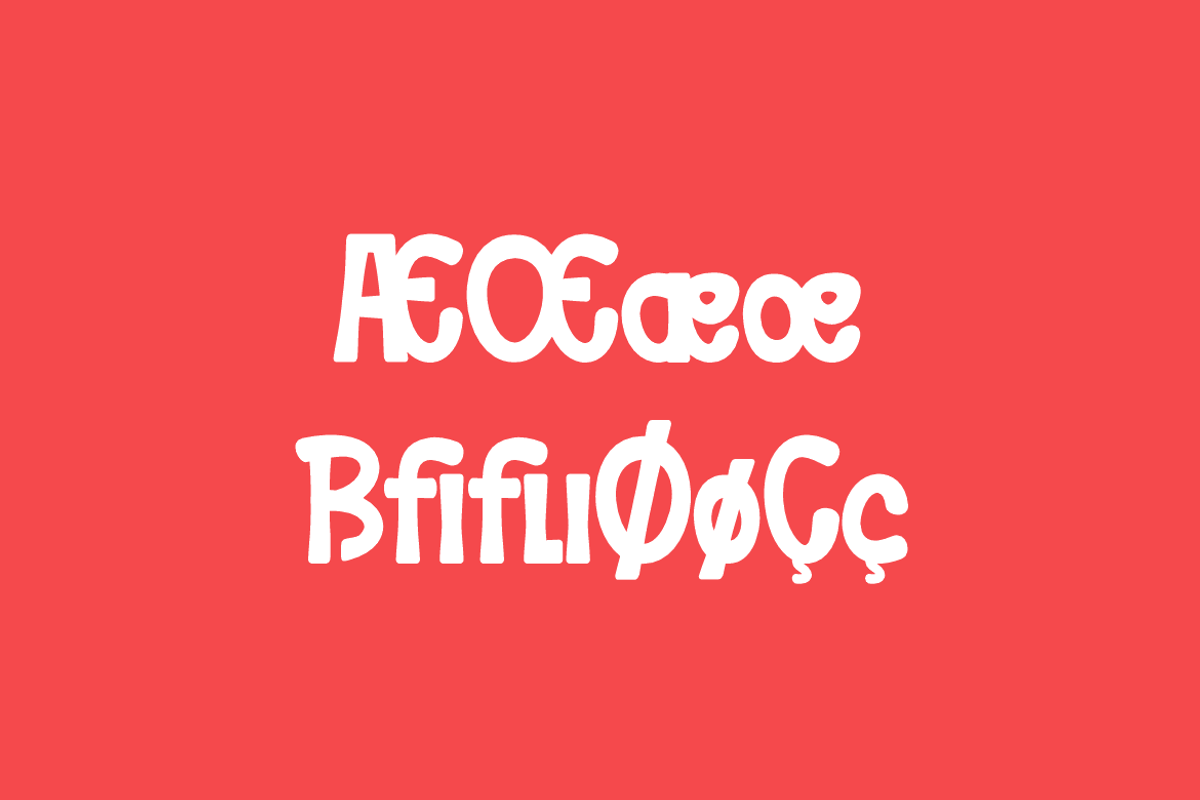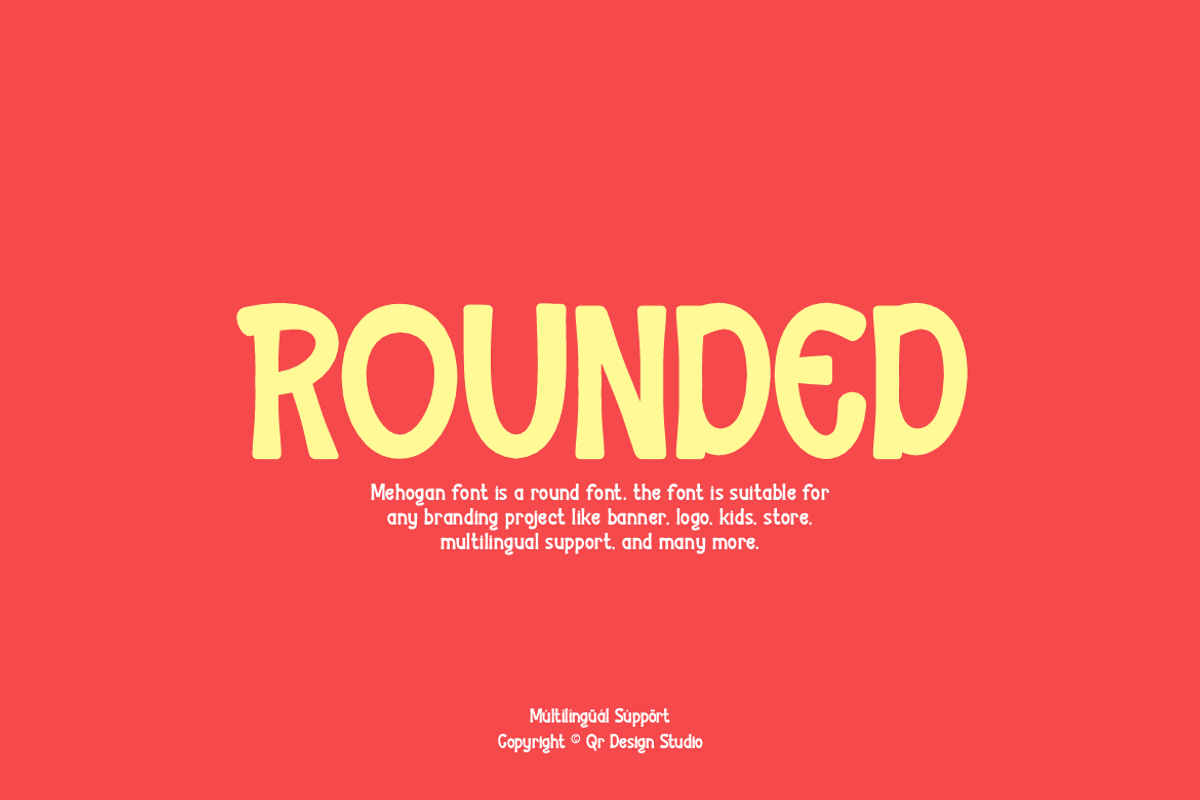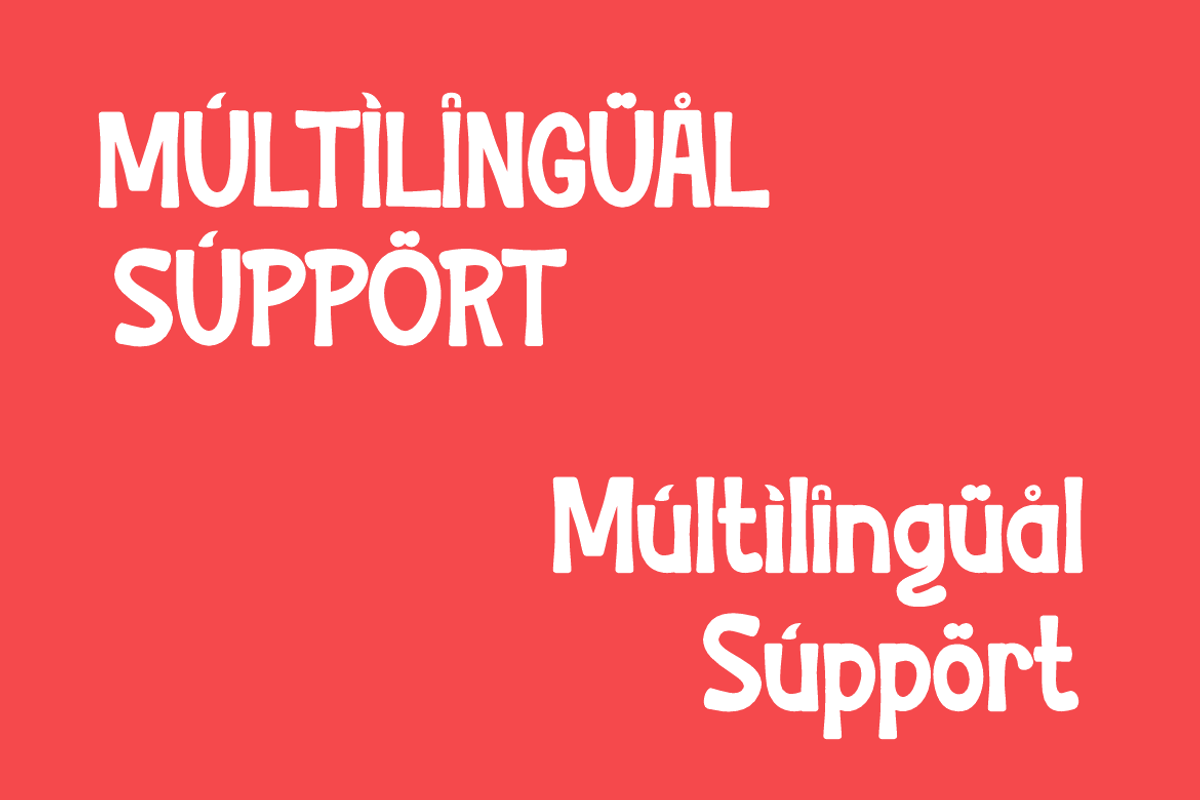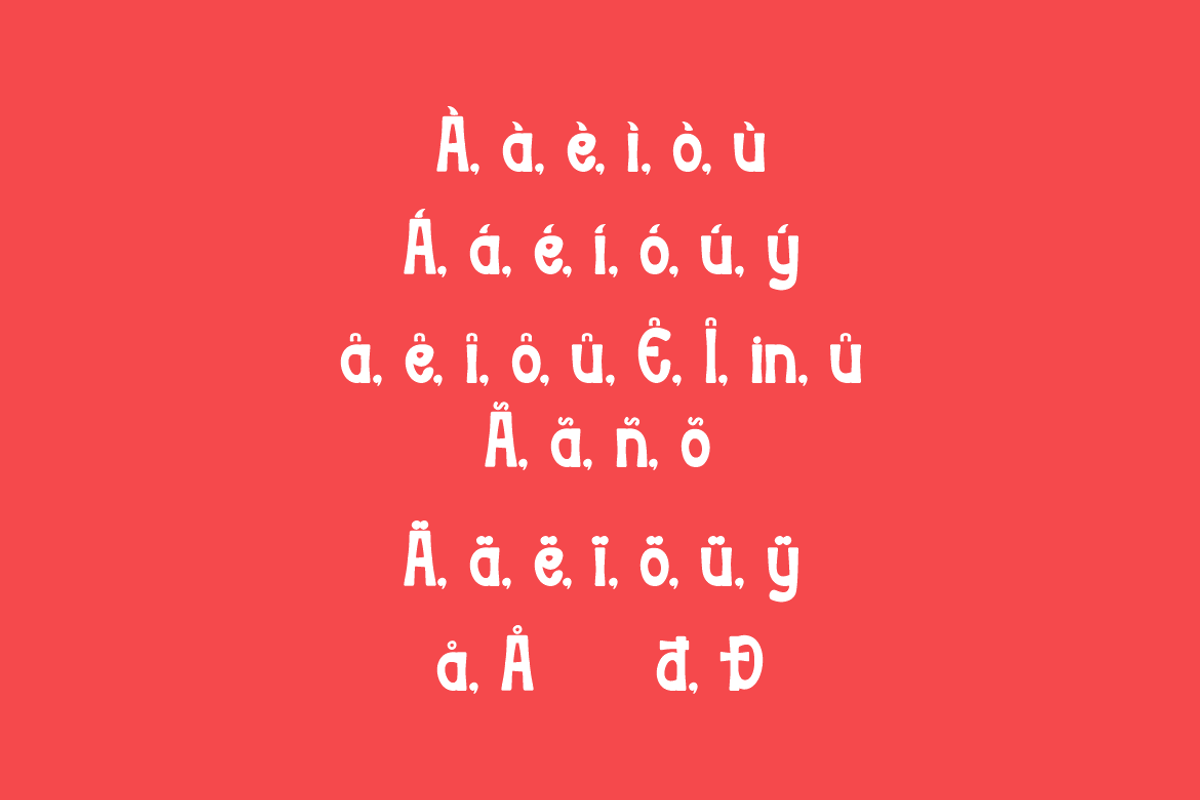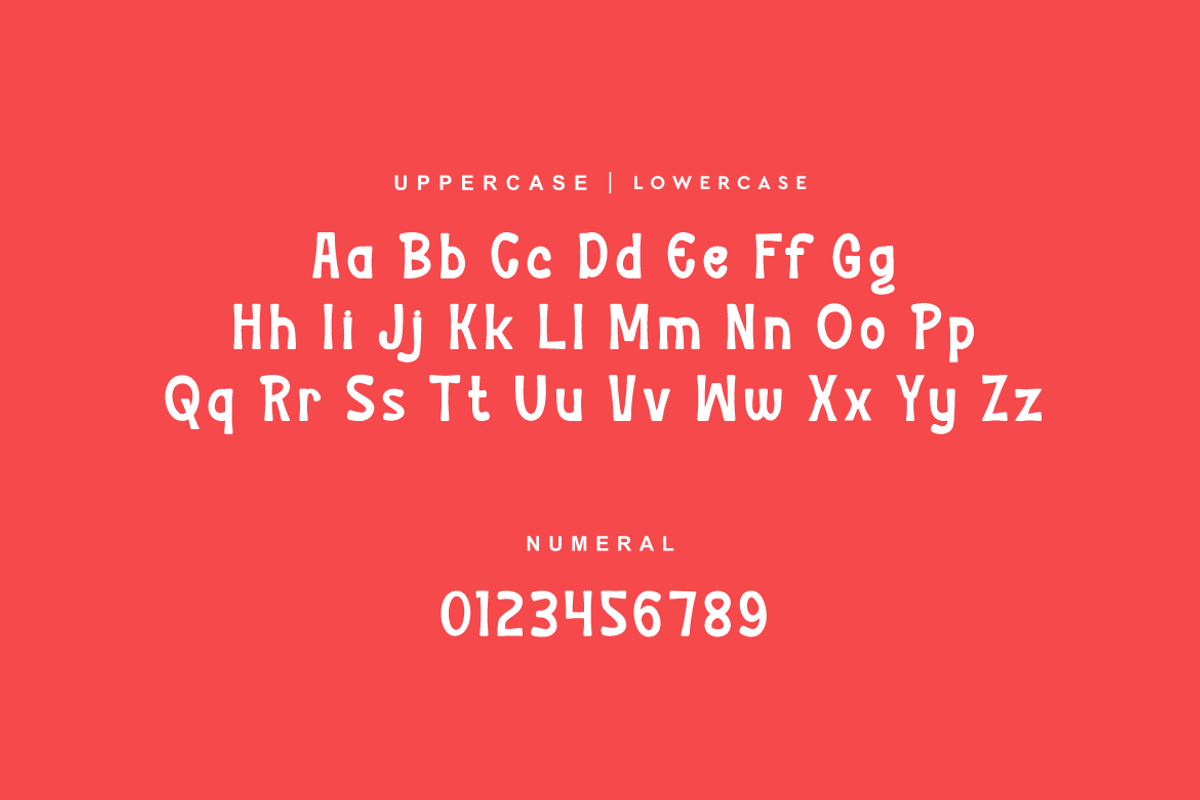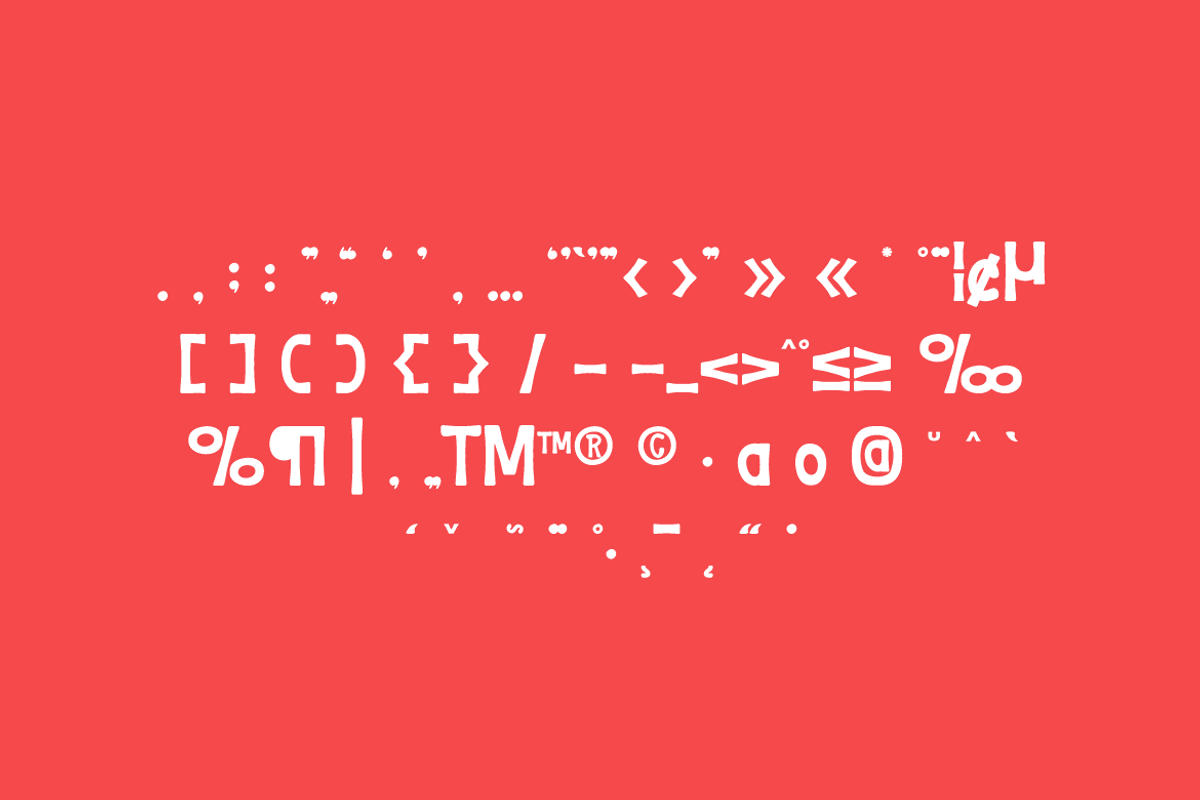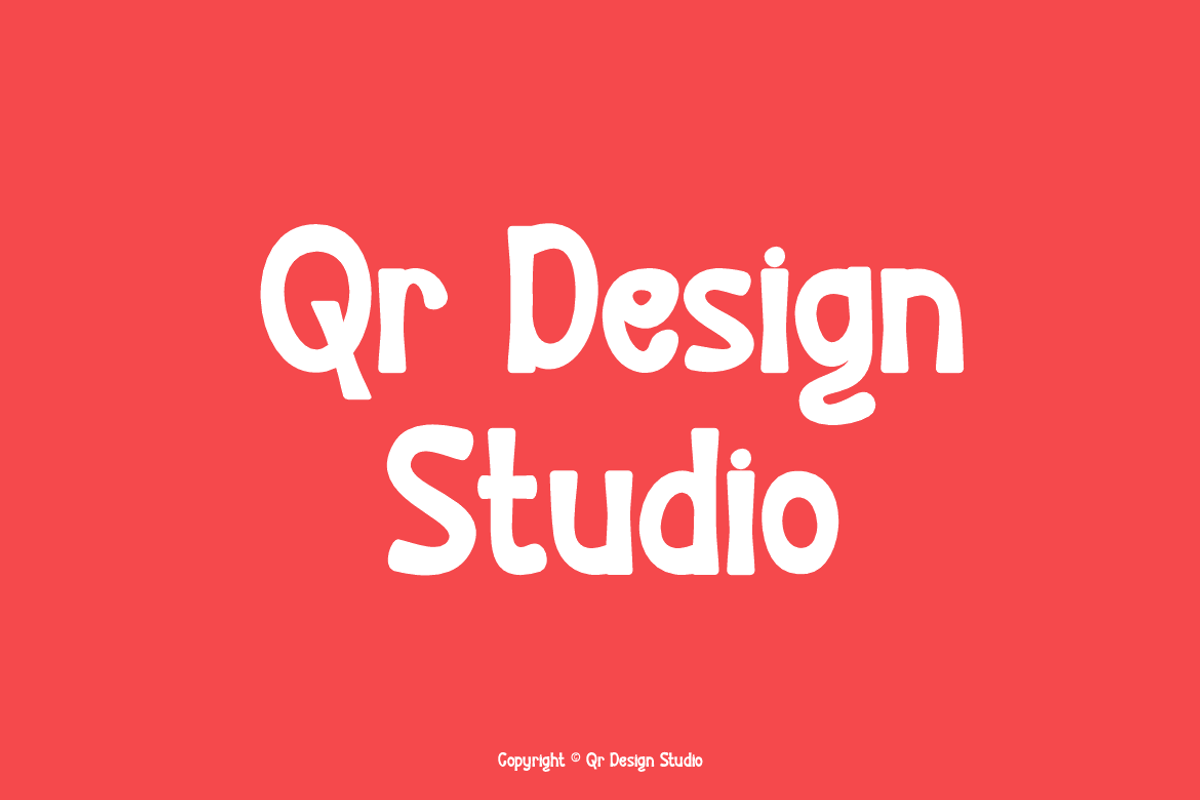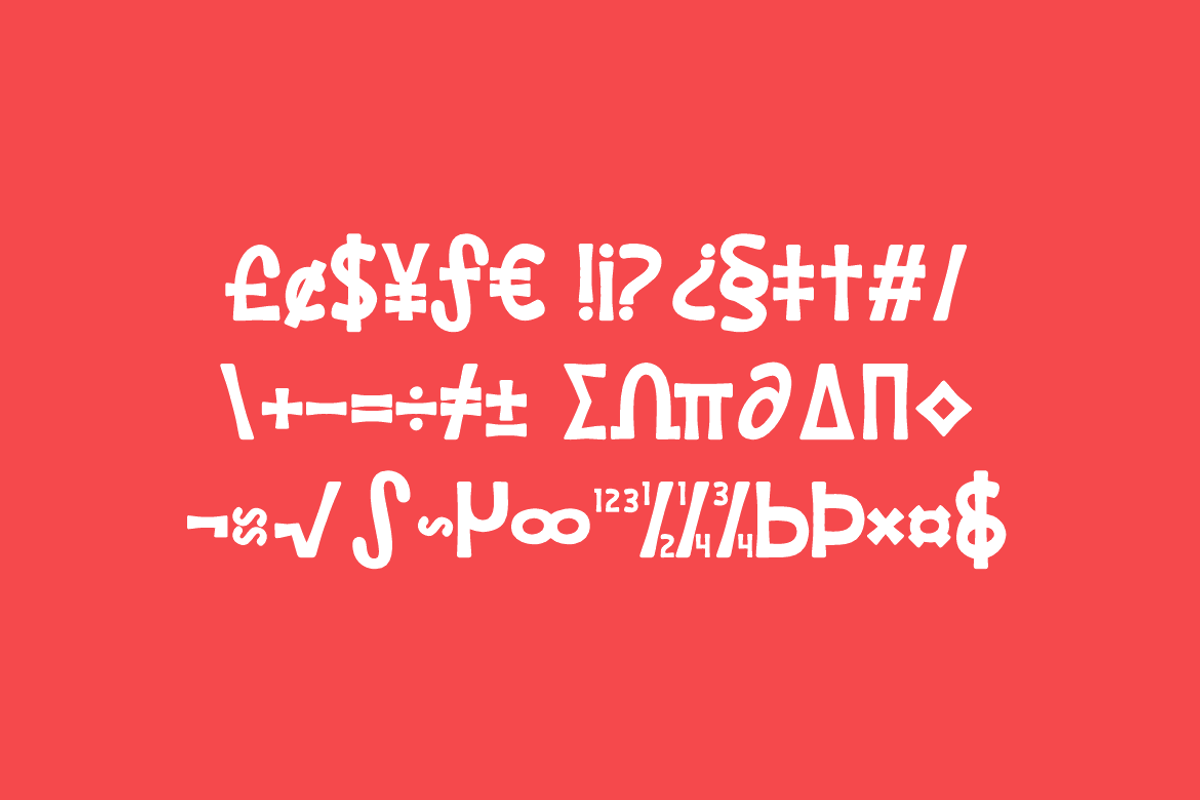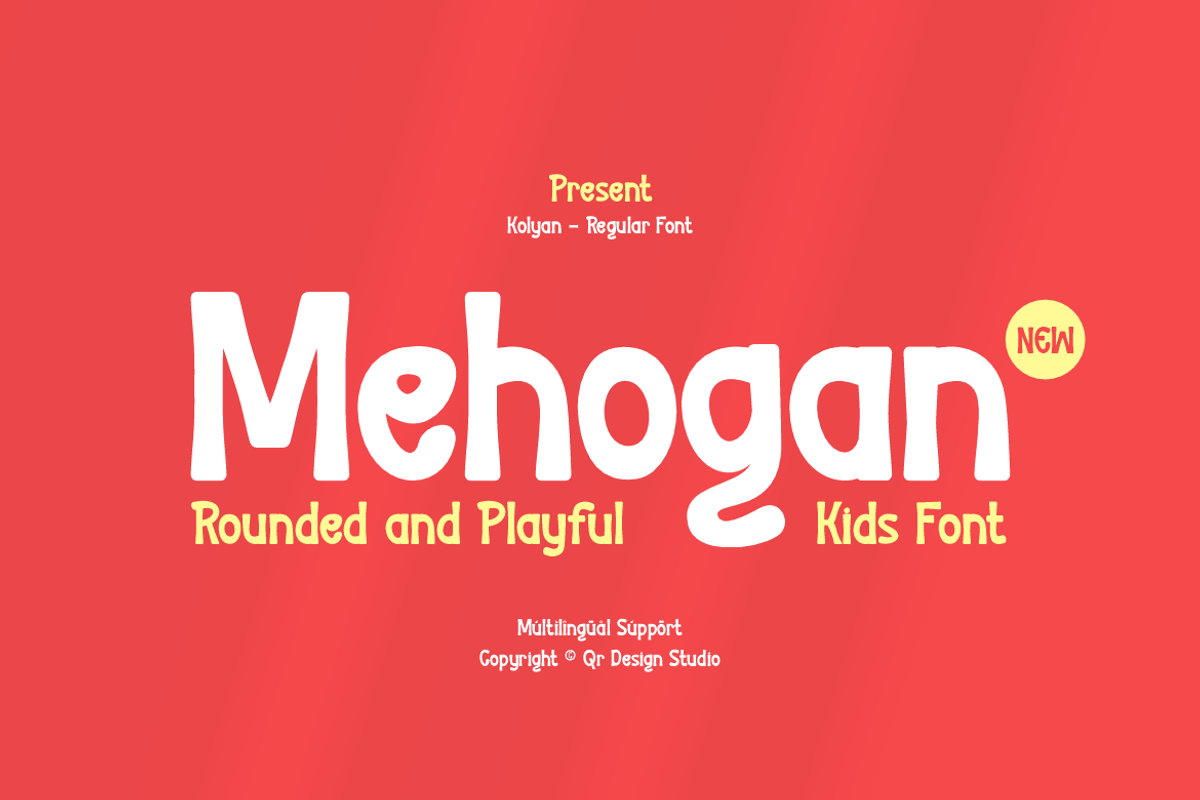
Mehogan - Round Funny Font
Mehogan Font is a round and authentic display font. The font is suitable for any branding project like poster, logo, kids, and many more. Outstanding in a wide range of contexts.